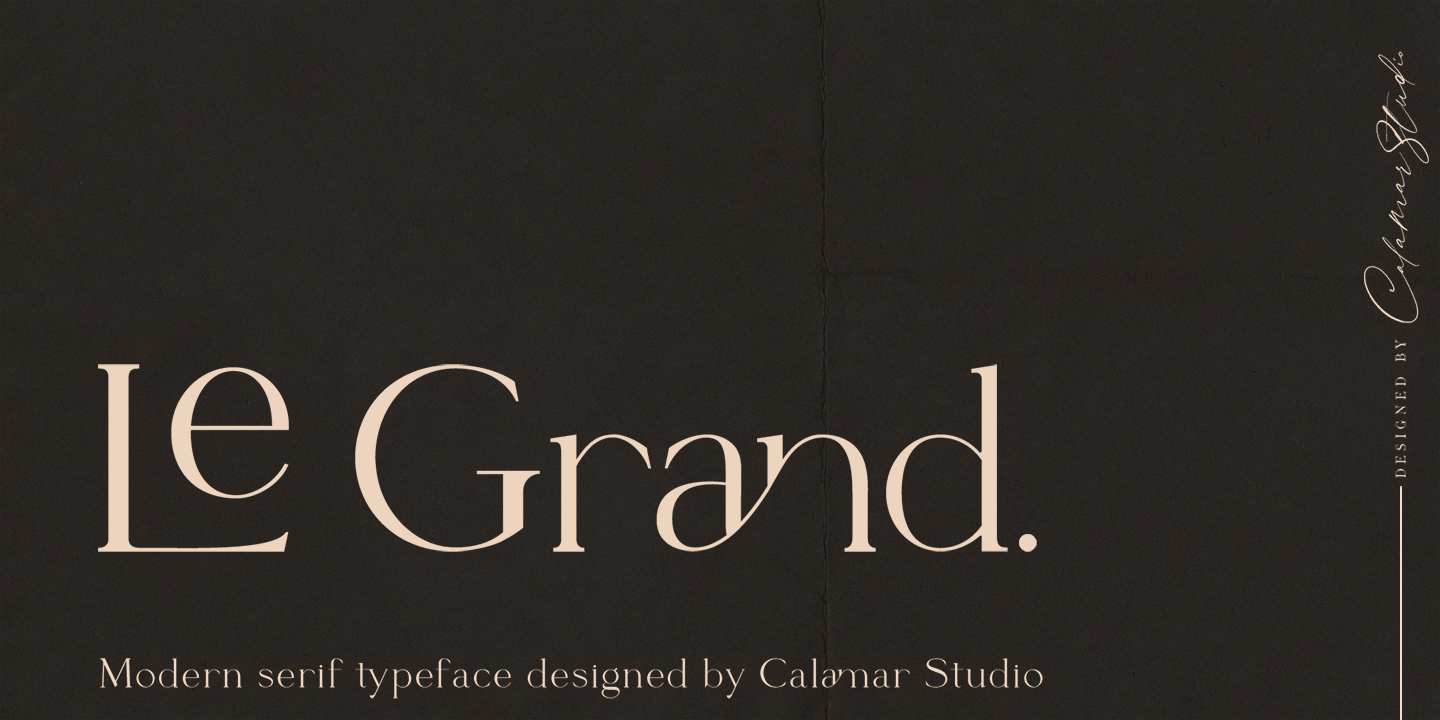
The Le Grand Font is ideal for luxury hotel branding, high-end fashion magazines, prestigious award ceremonies, elegant wedding invitations, fine dining restaurant menus, luxury real estate marketing, upscale event programs, premium brand communications, and sophisticated corporate presentations that require majestic typography with aristocratic elegance.
What makes the Le Grand Font so exciting is its magnificent ability to convey grandeur, sophistication, and timeless elegance that instantly commands respect and admiration from discerning audiences who appreciate the finest things in life. This extraordinary typeface embodies the essence of European aristocracy and refined luxury, featuring stately letterforms with classical proportions and regal character details that create an unmistakable sense of prestige, exclusivity, and uncompromising quality. The font's majestic presence and aristocratic heritage make it the perfect choice for brands and projects that represent the pinnacle of luxury, cultural refinement, and the enduring values of traditional excellence.
The Le Grand Font family typically includes regular, italic, bold, and bold italic weights, along with decorative capitals, elegant ligatures, and aristocratic design elements that provide luxury brands with comprehensive tools for creating prestigious branding systems and sophisticated high-end communications.
Luxury establishments and prestigious institutions consistently choose Le Grand Font Free Download for its unparalleled ability to convey authentic grandeur and aristocratic credibility. This distinguished typeface represents the pinnacle of luxury typography, offering professionals a majestic tool for creating memorable brand experiences that resonate with affluent audiences who demand nothing less than absolute excellence and refined sophistication. Whether you're developing branding for luxury hotels, creating promotional materials for high-end fashion brands, designing prestigious event invitations, or crafting exclusive marketing campaigns, this font delivers the grandeur and prestige that luxury communications require.
The majestically crafted letterforms of the Le Grand Font showcase classical proportions and regal styling details that ensure maximum impact and elegant readability across luxury applications while maintaining the aristocratic character essential for premium brand positioning. The font's commanding presence and sophisticated execution create immediate associations with exclusivity, heritage, and uncompromising luxury standards.
Luxury brand designers and high-end marketers appreciate the font's comprehensive elegance and aristocratic authenticity, which enables the creation of typography that genuinely represents the highest levels of sophistication and cultural refinement without compromising historical accuracy or luxury appeal.
For organizations seeking to establish unquestionable luxury positioning and communicate aristocratic excellence through their visual identity, the Le Grand Font provides an indispensable typography solution. Its regal foundation and proven luxury appeal make it particularly suitable for five-star hotels, luxury fashion houses, prestigious cultural institutions, and elite service providers that cater exclusively to the most discerning clientele.
The font's optimization for both traditional luxury print materials and high-end digital platforms ensures consistent aristocratic impact across all premium communication channels, while its timeless regal aesthetic provides enduring value for luxury brand systems requiring typography that authentically represents the eternal appeal of grandeur and the uncompromising standards of true aristocratic elegance in today's luxury marketplace.